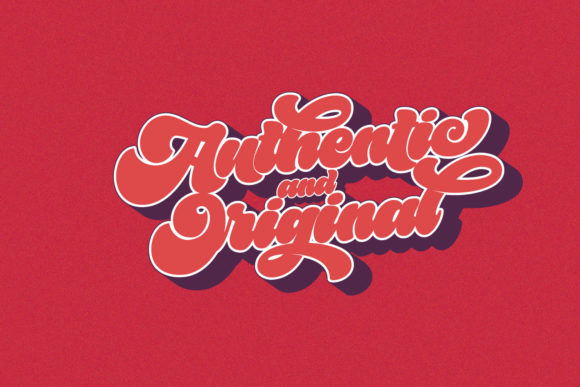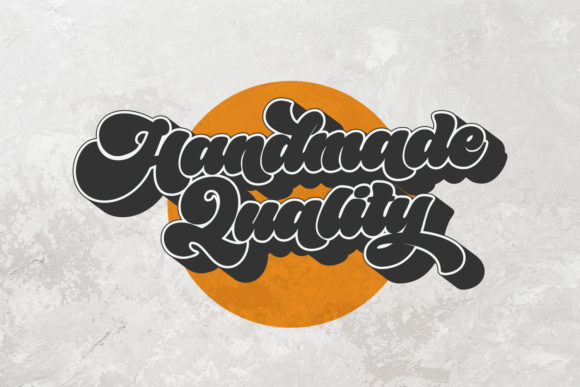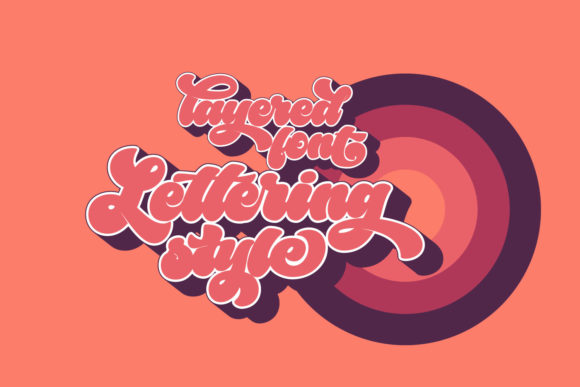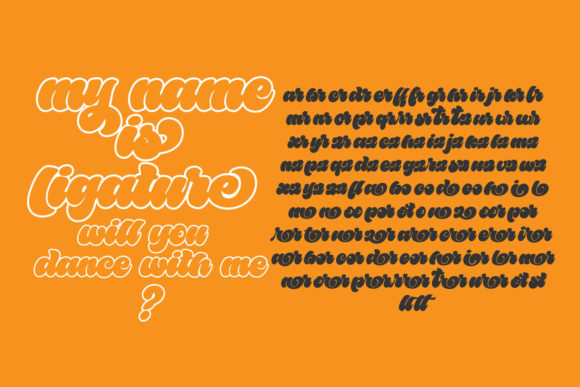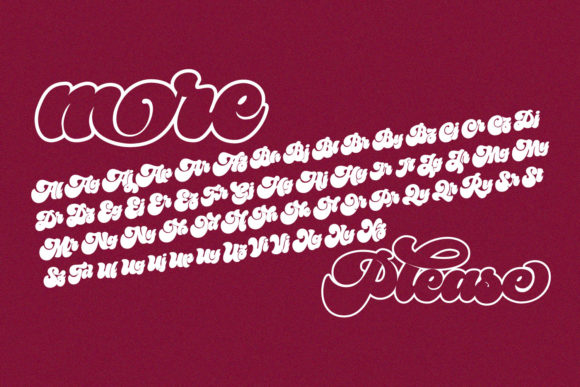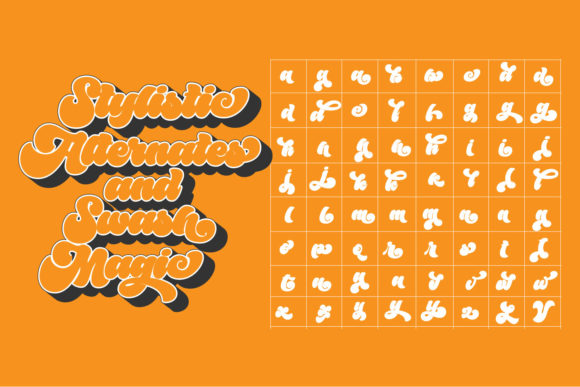
Introduction to Bailamore Font
Bailamore is a retro style handwritten font.
Whether youโre using it for crafting, digital designing, presentations or greeting cards making, Bailamore is perfect .
Key Features of Bailamore Font
Why Choose Bailamore Font?
Bailamore Font offers exceptional quality and versatility, making it a valuable addition to your design toolkit. Whether you’re creating for personal projects or commercial use, Bailamore Font delivers professional results.